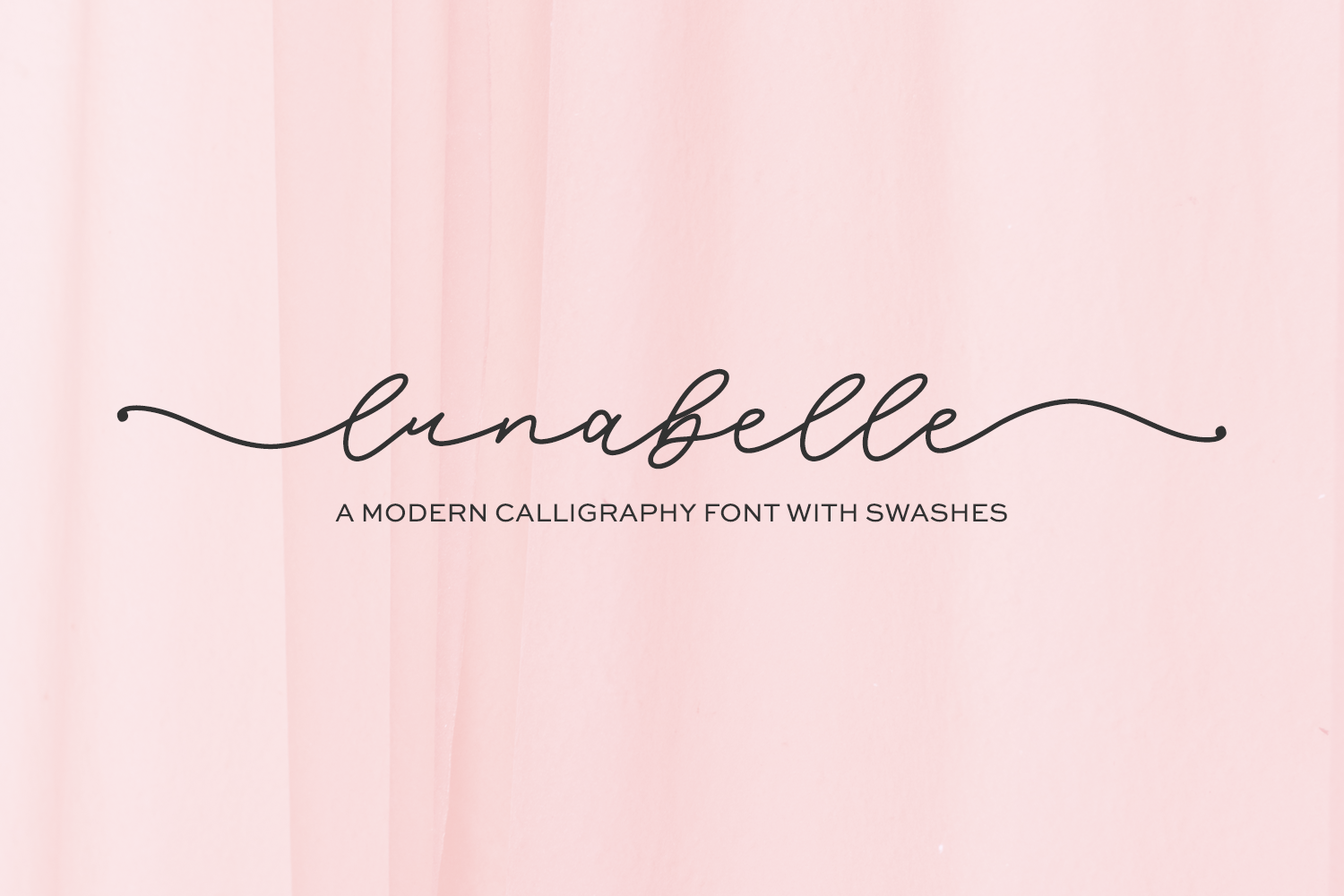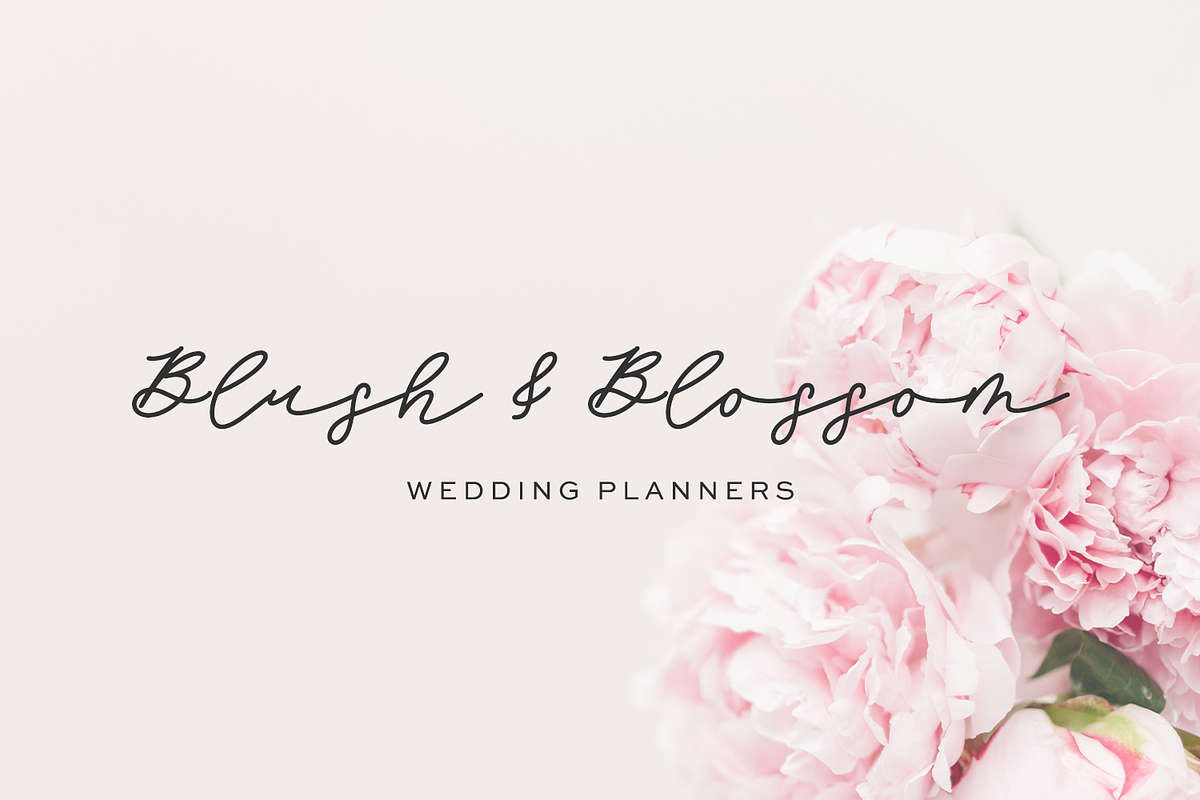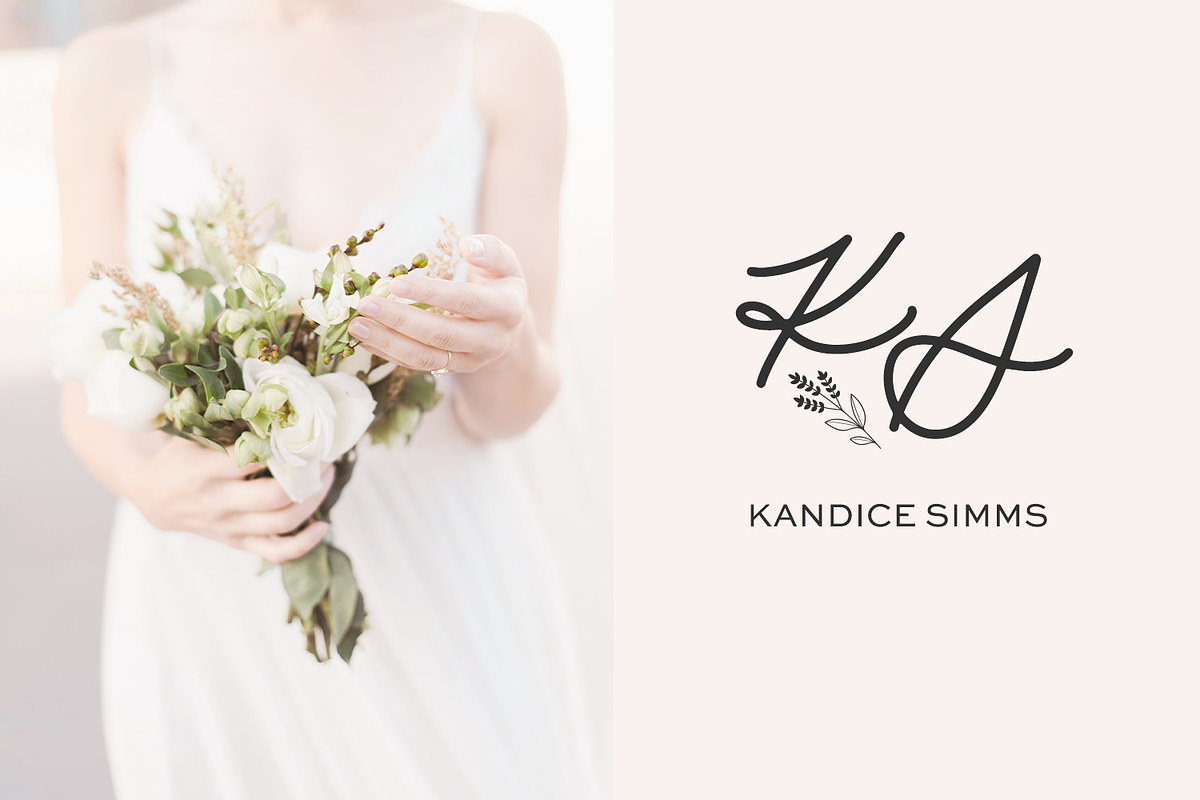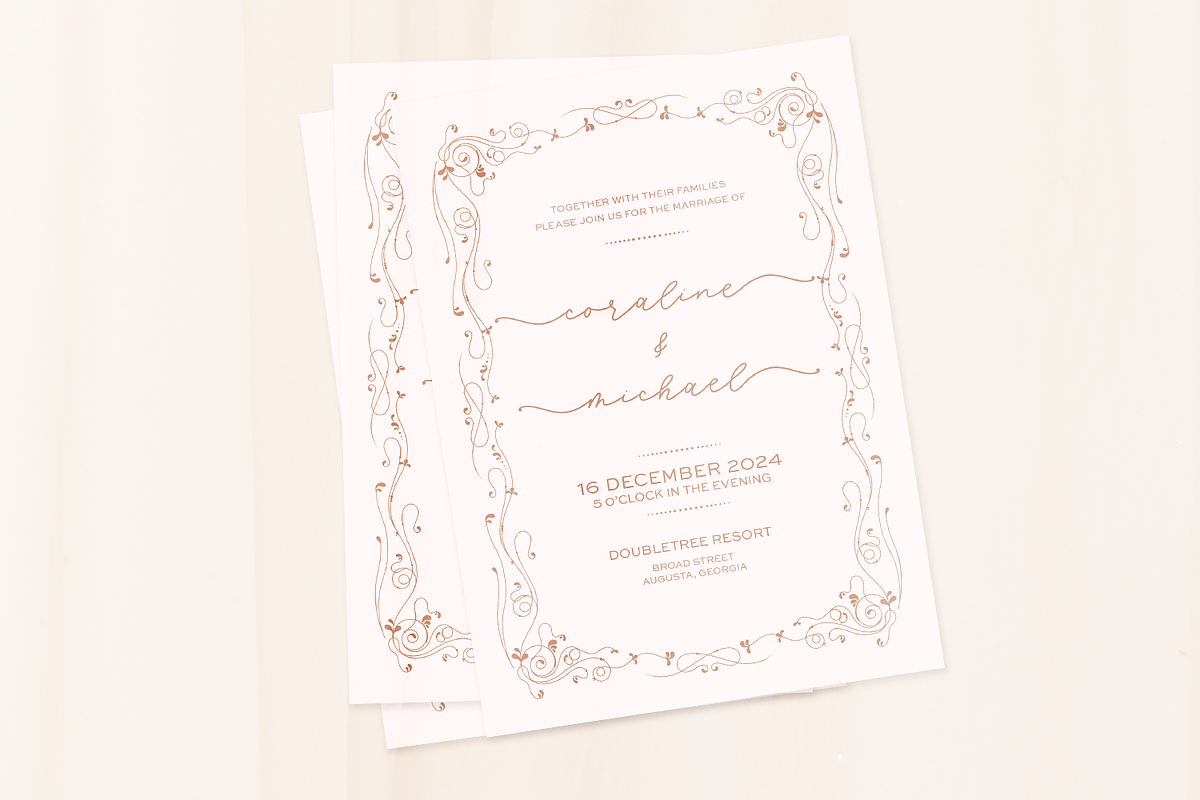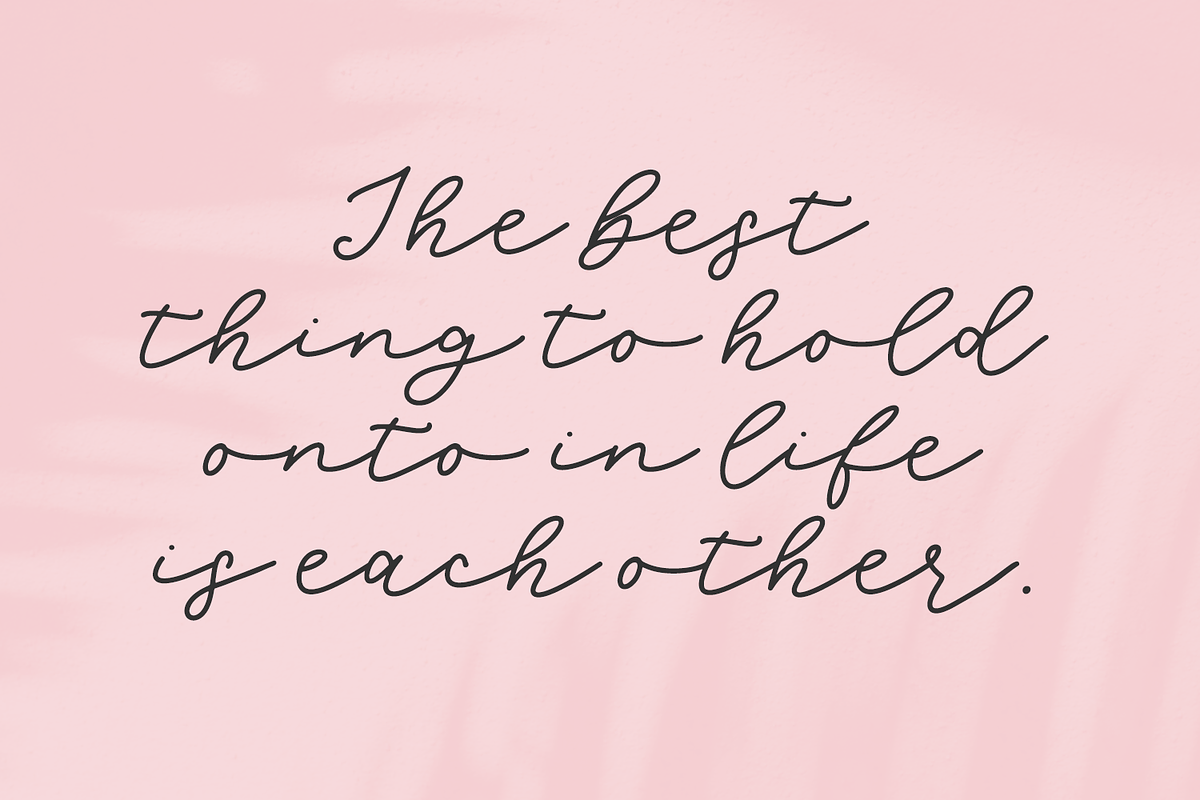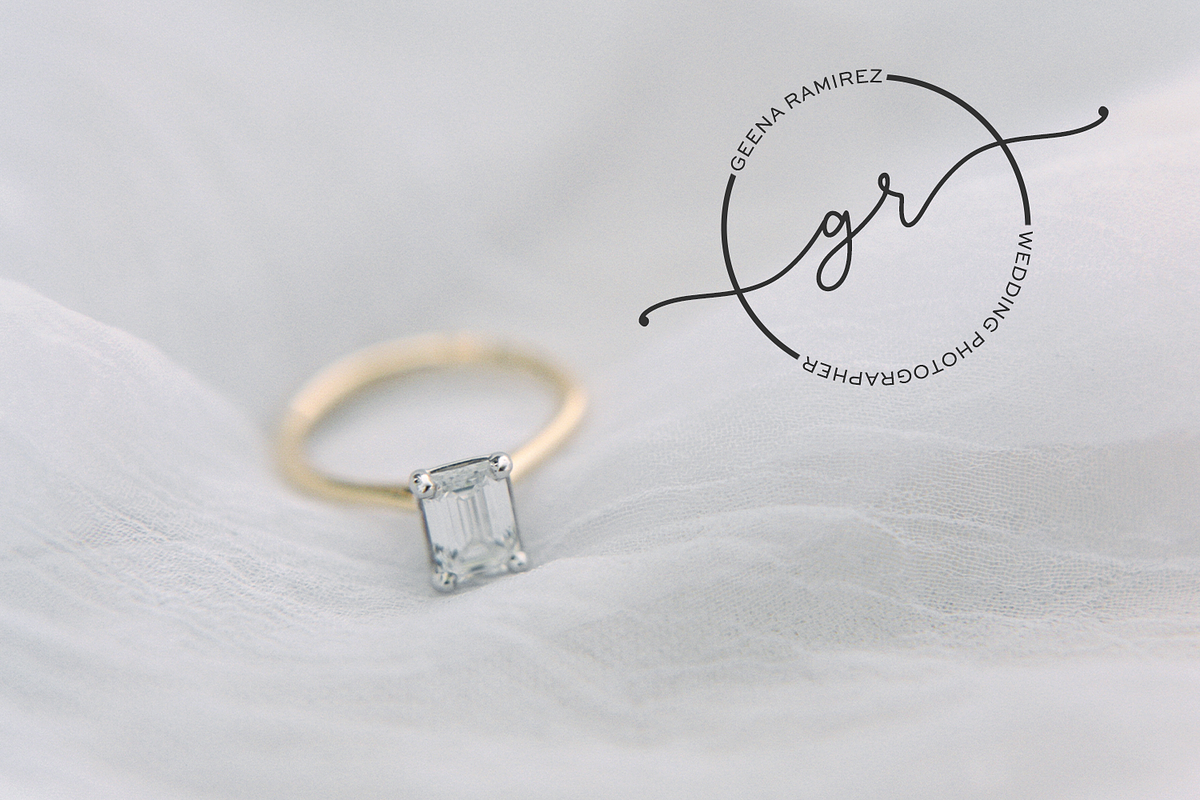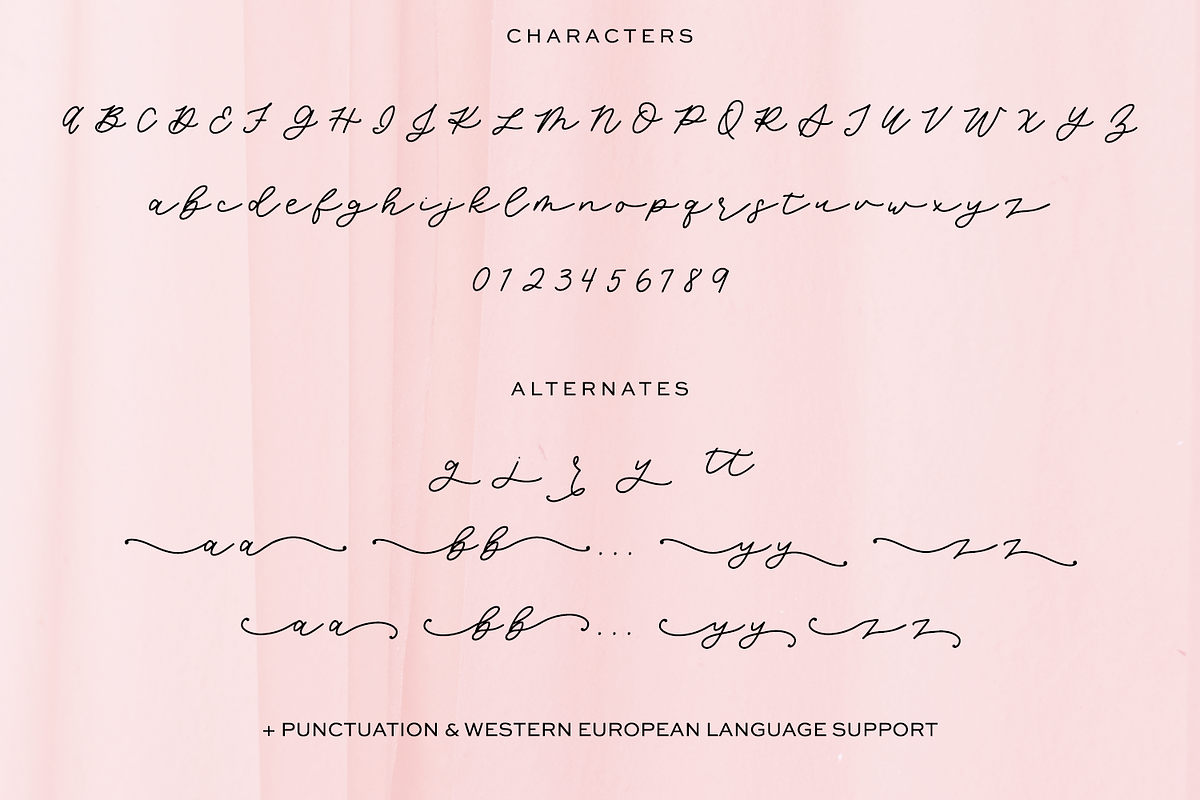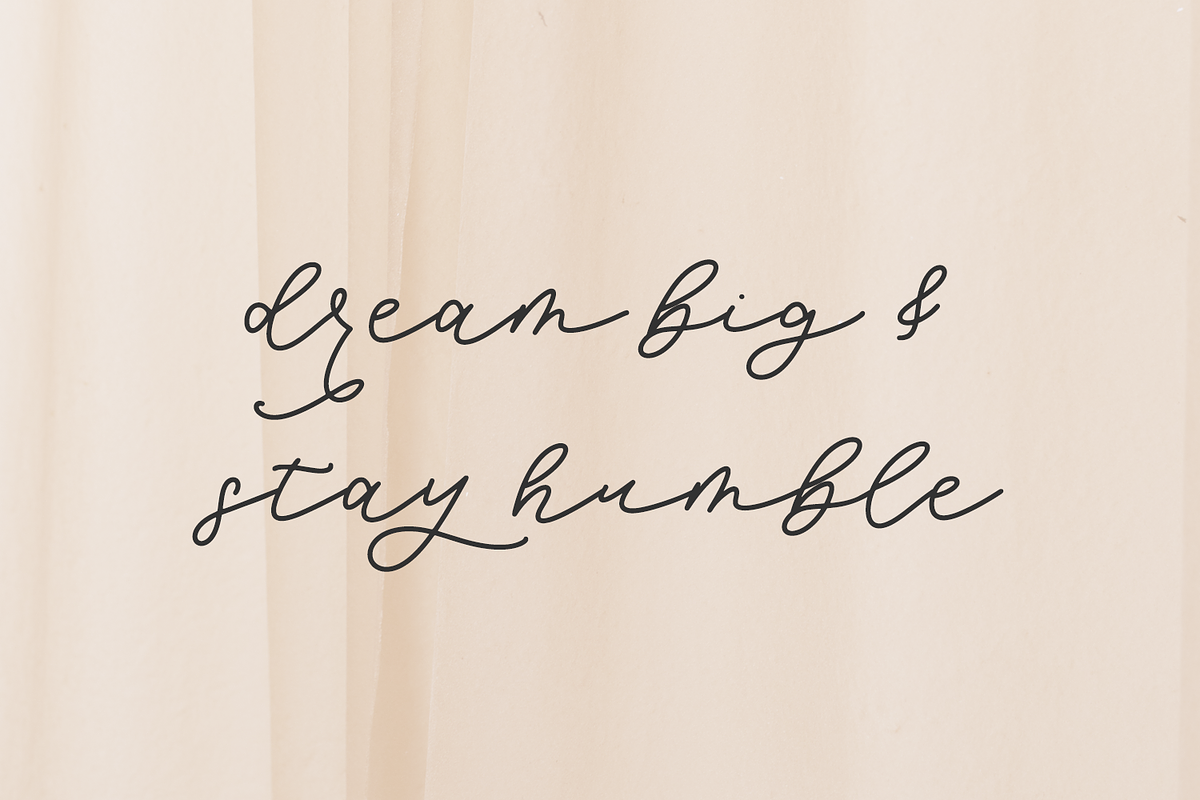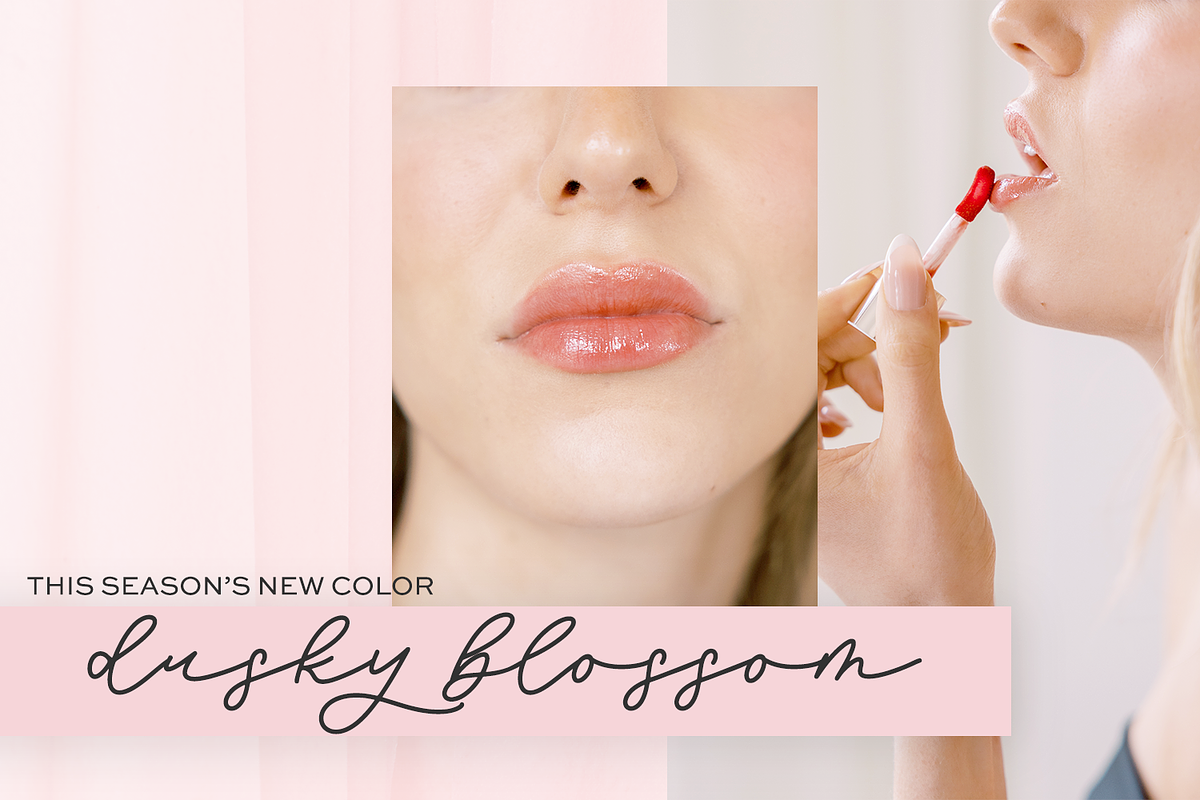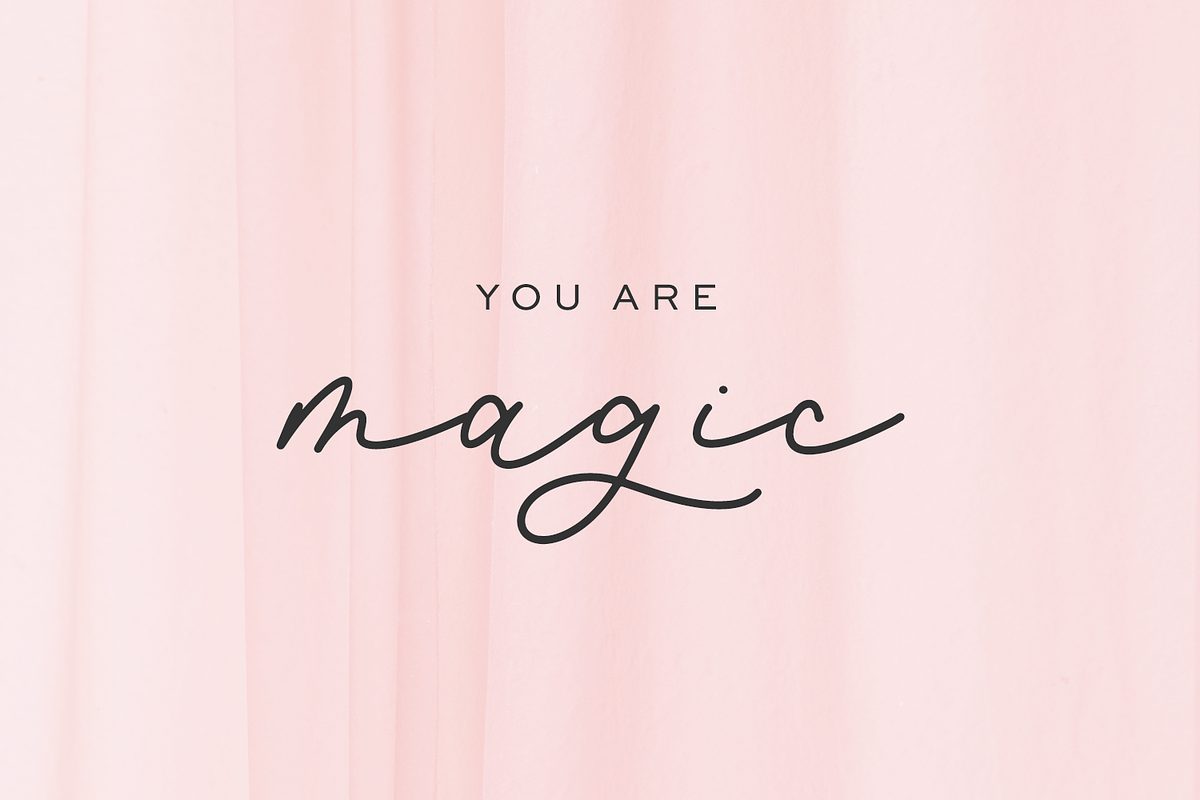
Lunabelle Script Font
Introducing Lunabelle, a flow cursive font with left and right swashes. Lunabelle is perfect for wedding invitations, greeting cards, social media posts, marketing materials, watermarks, logos & branding, or quote graphics.
Lunabelle includes:
- upper + lowercase characters A-Z and a-z
- numbers 0-9
- punctuation
- 4 alternates - g, j, r, y
- 1 ligature - tt
- two full a-z swash sets for both left and right swashes (104 total glyphs)
- Western European Language Support